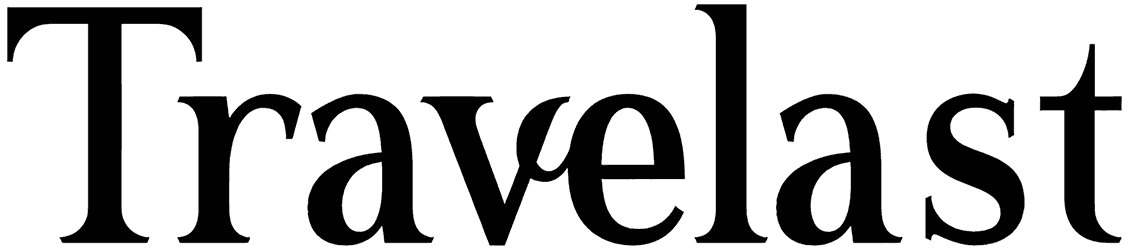
Travelast Font
If you can also sense the dark energy radiating from the pointy letters of this serif font, you too should agree that it should be called Last Travel instead of Travelast. It looks like a curse that happens to you on your adventure and only dies with your last breath. Right?
But we know damn well that this kind of mystic vibes won’t scare you off. If anything, you probably want it even more in your magic book titles and fantasy designs.